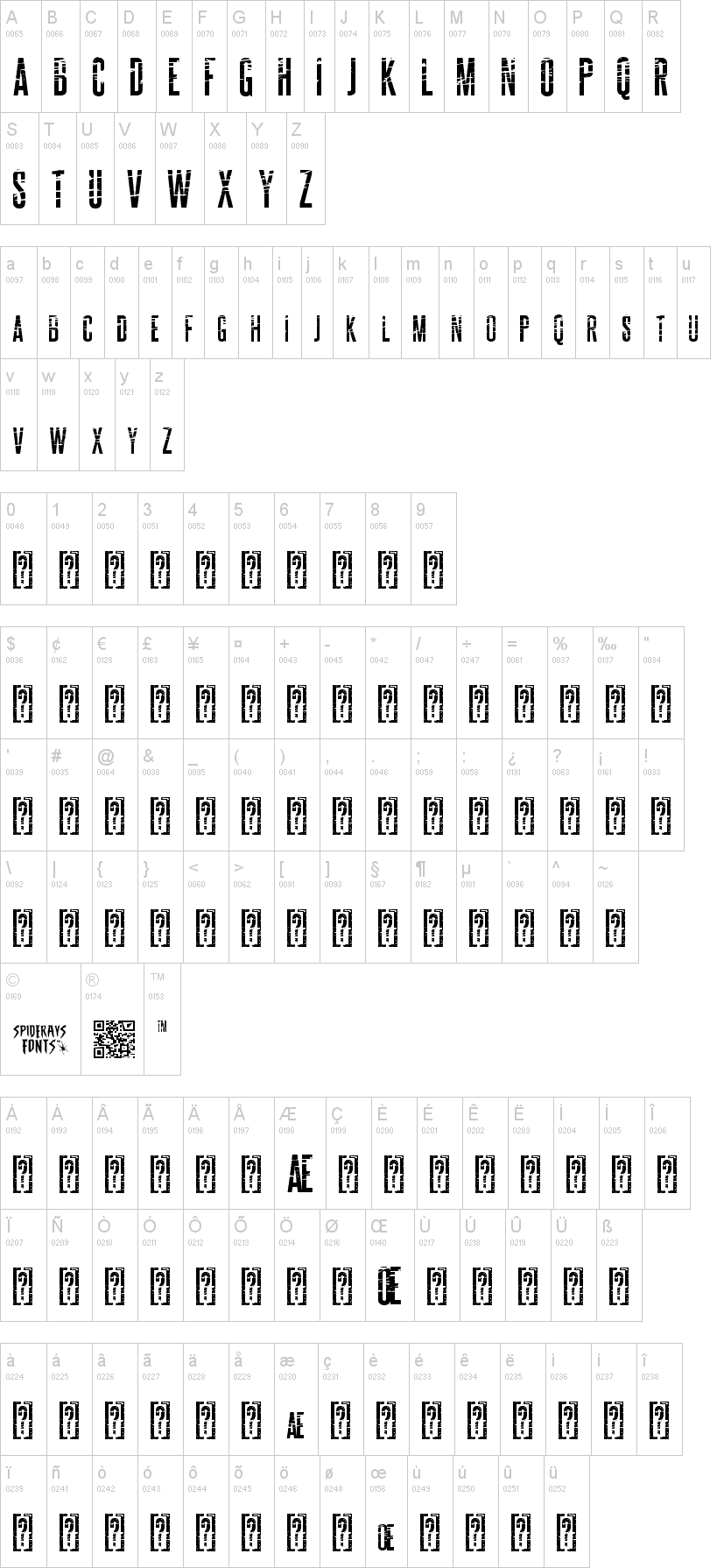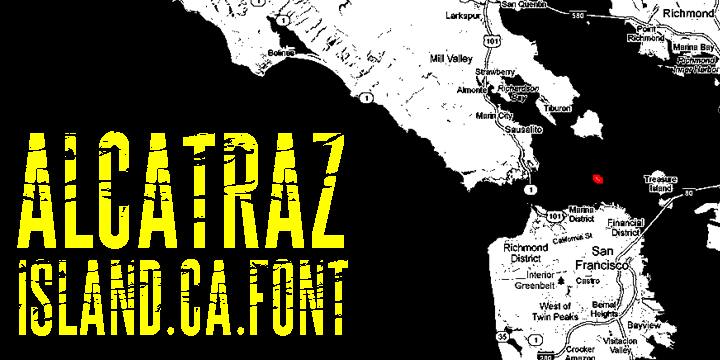
Note of the authorEver since I watched Clint Eastwood escape from "THE ROCK" in 1979 using nothing but a spoon a load of raincoats and some bed sheets Alcatraz Island has always remained in the back of my mind , when Fox released the 2012 version sci-fi thriller I had to check it out, this font was inspired by the opening titles of the series.